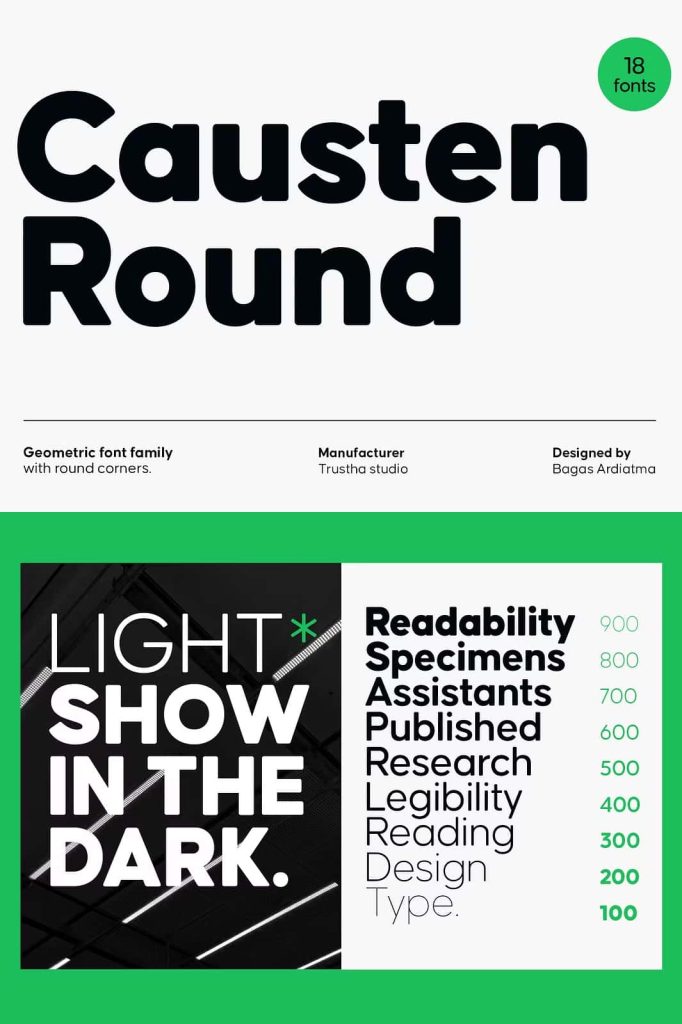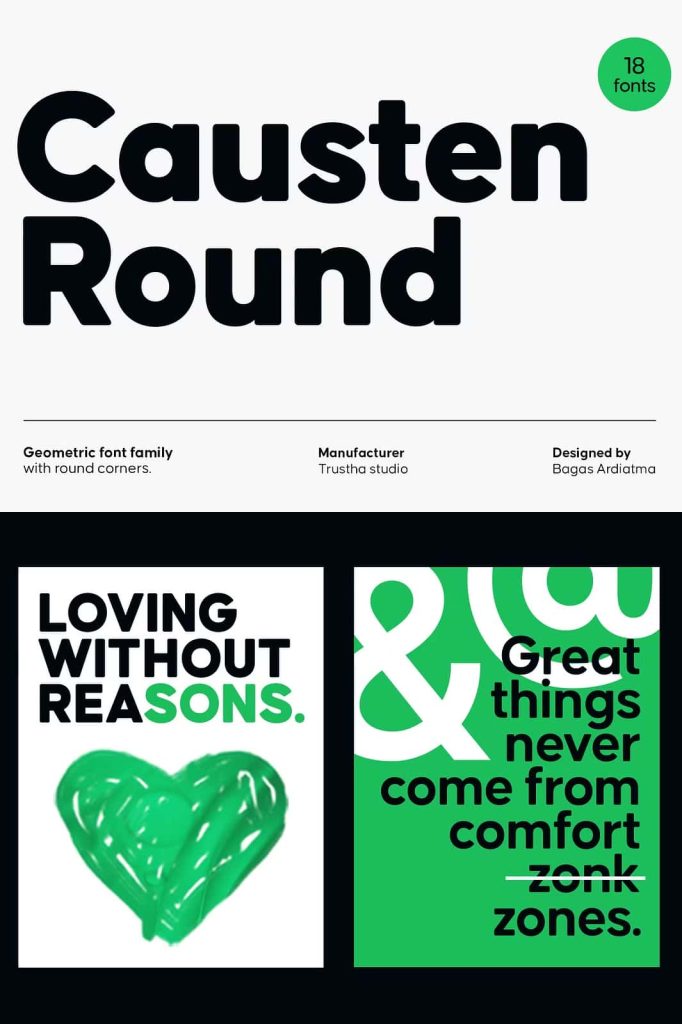
Causten Round Font FamilyleastedMay 23, 2025Fonts Causten Round is a geometric sans serif font family with round corners and maintains rationality in designing each form. Download